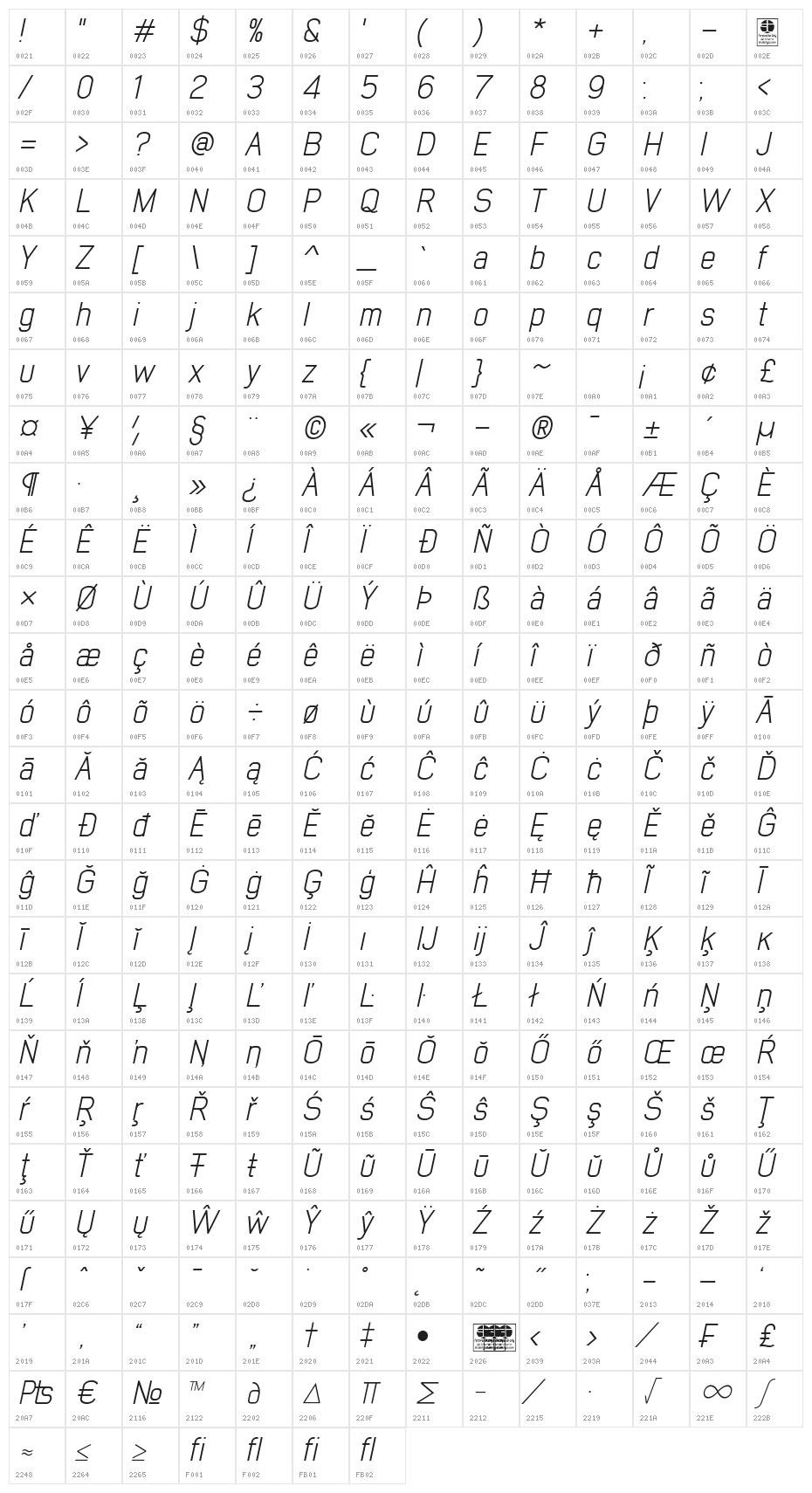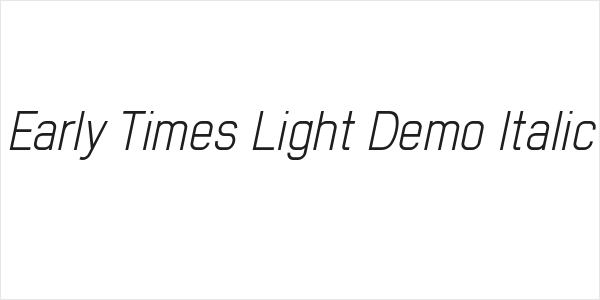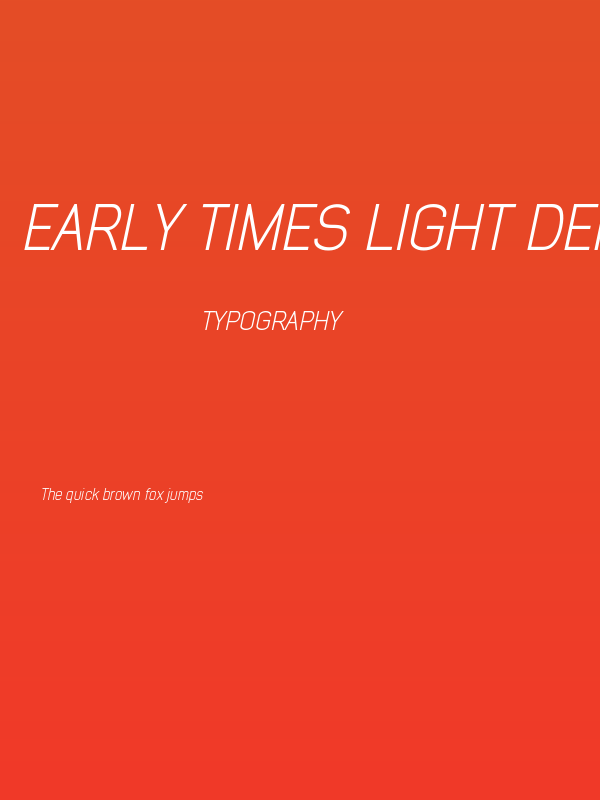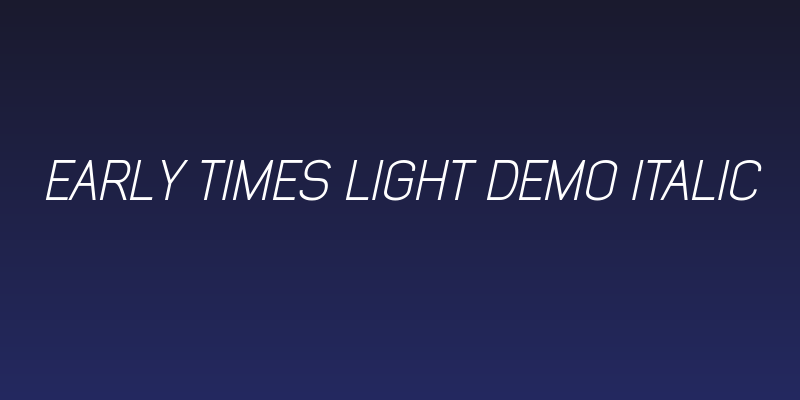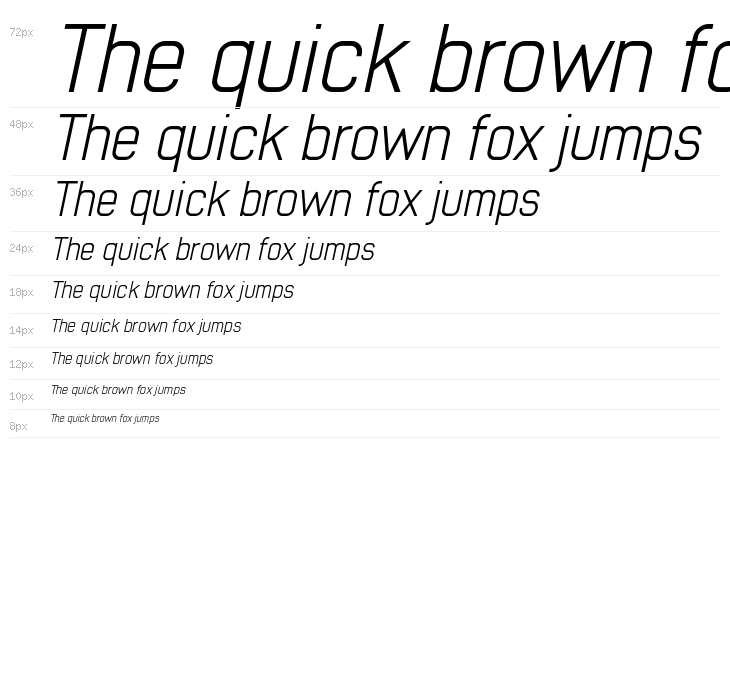
Early Times Light Demo Italic Font
Early Times Light Demo Italic Description
This font features a sleek, modern design with a light weight and italic style. The characters are slightly condensed, giving it a streamlined and elegant appearance. The strokes are consistent and smooth, with a medium contrast that enhances readability while maintaining a sophisticated look. The uppercase and lowercase letters are well-proportioned, and the numerals are clear and distinct. Special characters are included, making it versatile for various uses. Its overall style is contemporary, making it suitable for projects that require a clean and professional aesthetic.